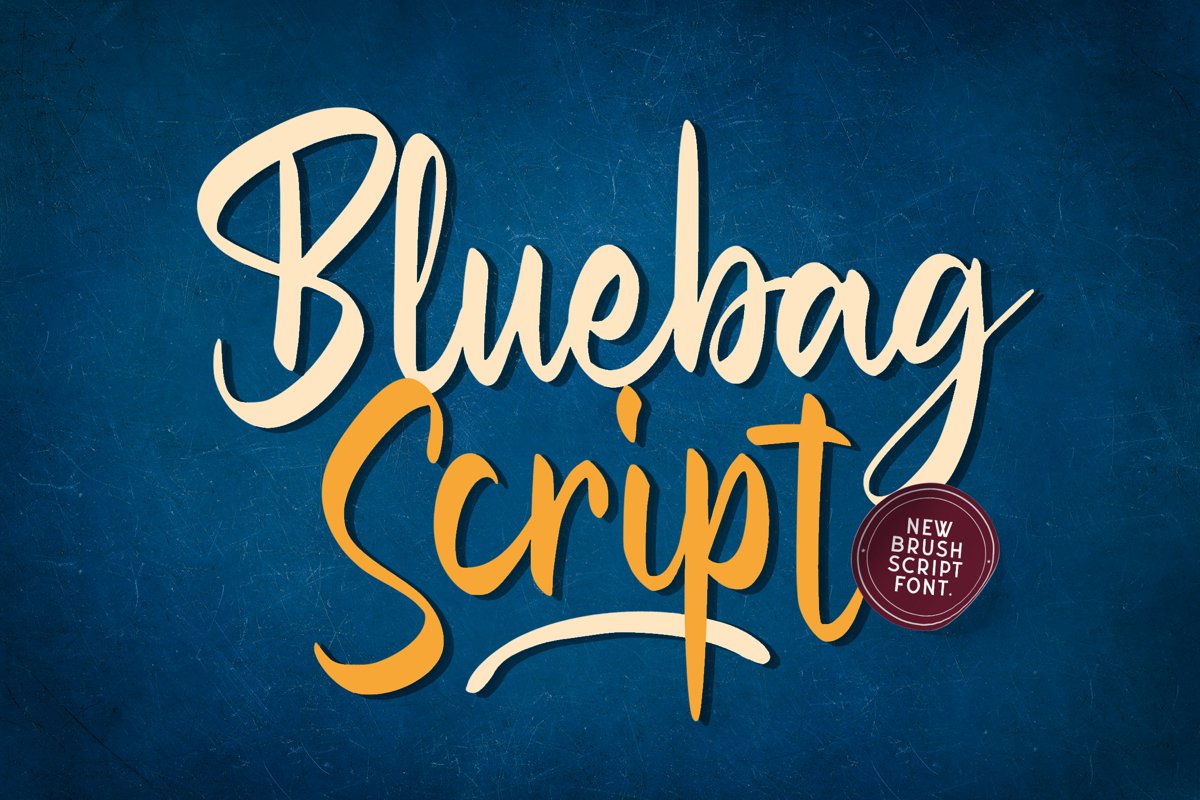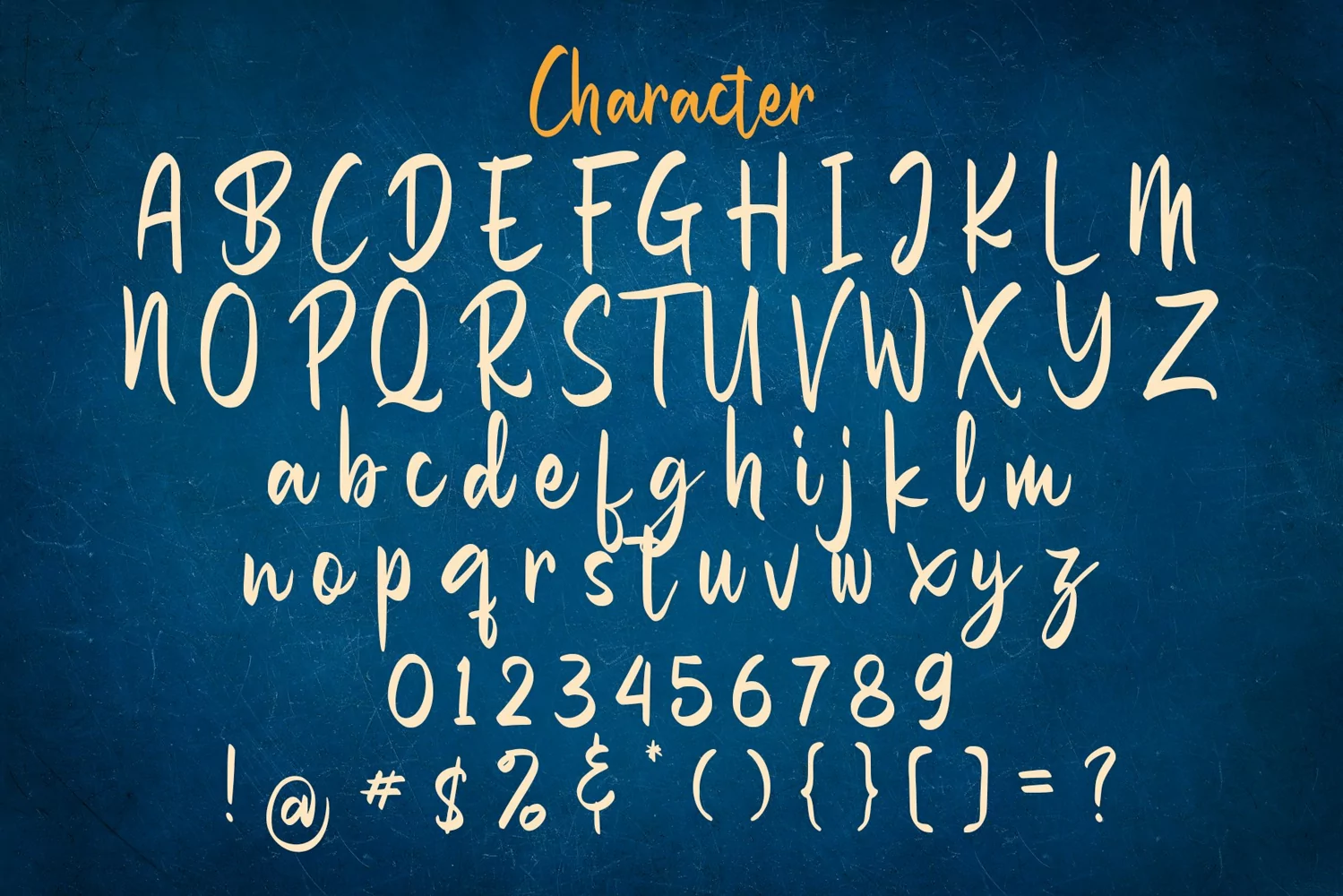
Bluebag is a script brush typeface. Perfect for display, quotes, poster, logo, logotype, branding, crafting needs, event needs, signature, wedding needs, packaging, merchandise, header, tittle business card and many more.